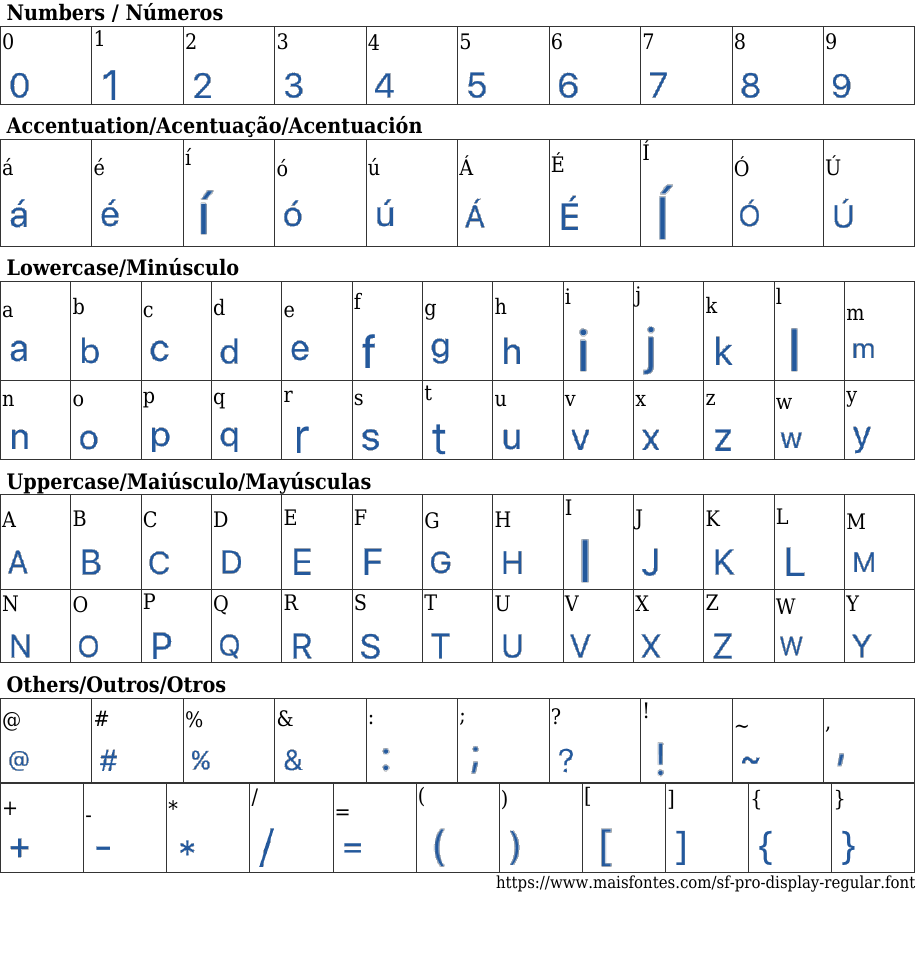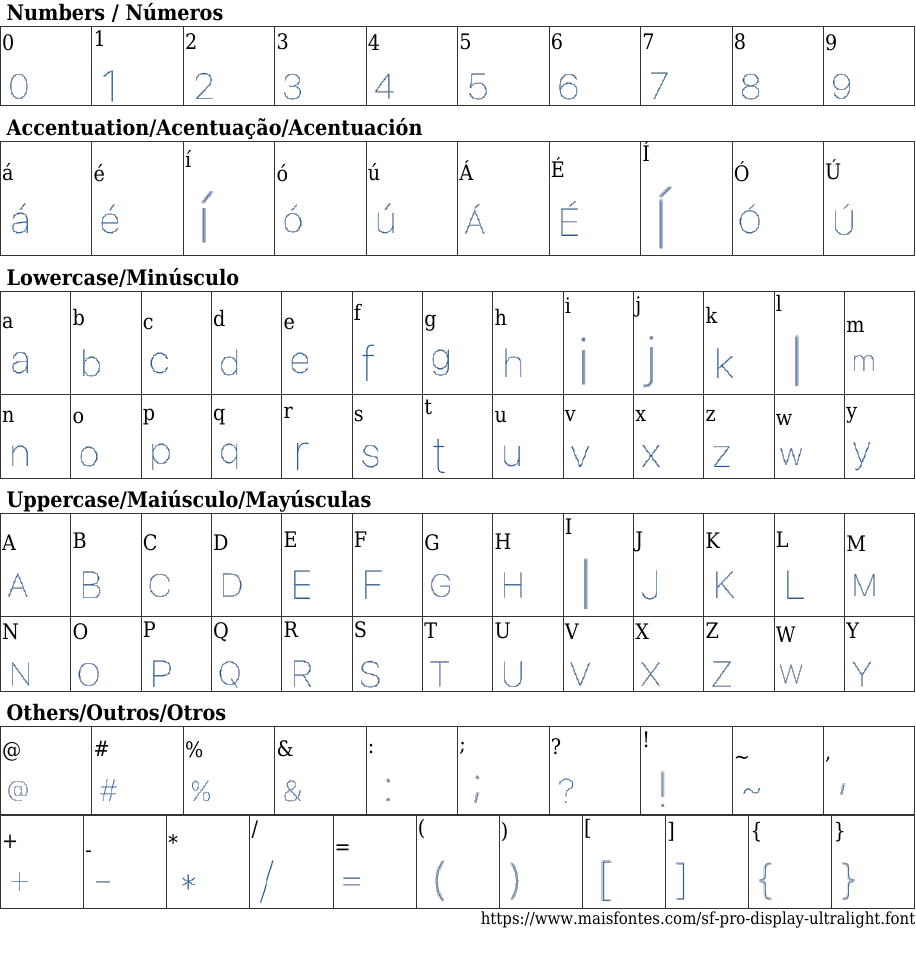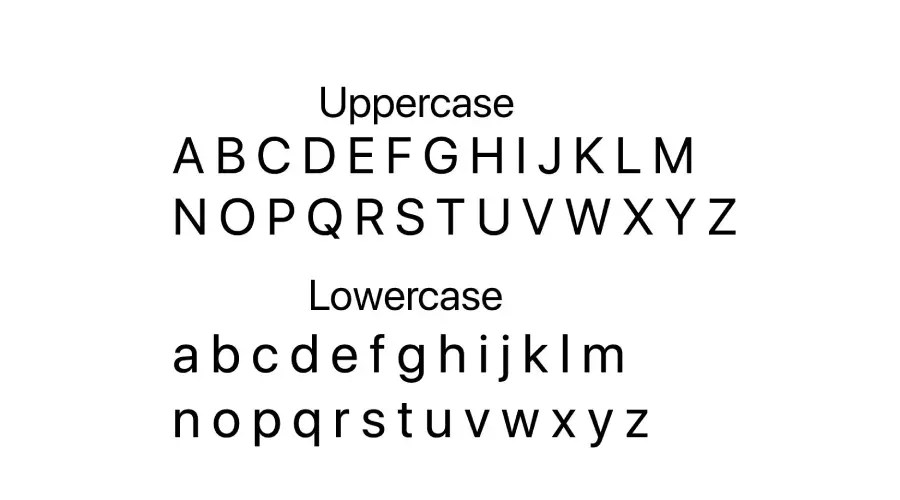
Sf Pro Display Download Font . Has a total of 9 different styles. Sf pro display font family. 51 rows the entire collection of san francisco pro fonts. Sf pro display font family designed by apple inc. The purpose of this is to provide a singular set of. Use sf pro text for text 19 points or smaller, and sf. This simple collection contains all the dynamic type sizes for sf pro display in 4 weights: You can download the sf pro display font to your computer or use it. Including the new serif fonts found in the apple book app on ios 12, and more to come. Use sf pro text for text 19 points or smaller, and sf pro display for text 20 points or larger. Sf pro features nine weights, variable optical sizes for optimal legibility, four widths, and includes a. Regular, medium, semibold, and bold. 20 rows san francisco family (sf family) all of the fonts in san francisco font family, developed by apple. San francisco (sf) is the carplay system typeface.
Use sf pro text for text 19 points or smaller, and sf. Use sf pro text for text 19 points or smaller, and sf pro display for text 20 points or larger. Including the new serif fonts found in the apple book app on ios 12, and more to come. 51 rows the entire collection of san francisco pro fonts. Sf pro display font family designed by apple inc. You can download the sf pro display font to your computer or use it. Regular, medium, semibold, and bold. Sf pro display font family. San francisco (sf) is the carplay system typeface. Sf pro features nine weights, variable optical sizes for optimal legibility, four widths, and includes a.
Sf Pro Display Download Font Has a total of 9 different styles. The purpose of this is to provide a singular set of. Regular, medium, semibold, and bold. 51 rows the entire collection of san francisco pro fonts. You can download the sf pro display font to your computer or use it. Use sf pro text for text 19 points or smaller, and sf pro display for text 20 points or larger. Sf pro features nine weights, variable optical sizes for optimal legibility, four widths, and includes a. Including the new serif fonts found in the apple book app on ios 12, and more to come. Has a total of 9 different styles. Use sf pro text for text 19 points or smaller, and sf. Sf pro display font family designed by apple inc. 20 rows san francisco family (sf family) all of the fonts in san francisco font family, developed by apple. This simple collection contains all the dynamic type sizes for sf pro display in 4 weights: San francisco (sf) is the carplay system typeface. Sf pro display font family.
How to Use SF Pro Expanded and the Other New Font Widths DetailsPro Sf Pro Display Download Font You can download the sf pro display font to your computer or use it. Has a total of 9 different styles. Regular, medium, semibold, and bold. Sf pro display font family. The purpose of this is to provide a singular set of. Use sf pro text for text 19 points or smaller, and sf. Including the new serif fonts found. Sf Pro Display Download Font.
SF Pro Display UltraLight Free Font Download MaisFontes Sf Pro Display Download Font Sf pro display font family. 20 rows san francisco family (sf family) all of the fonts in san francisco font family, developed by apple. You can download the sf pro display font to your computer or use it. This simple collection contains all the dynamic type sizes for sf pro display in 4 weights: Has a total of 9 different. Sf Pro Display Download Font.
Sf Pro Text Regular Font Download Printable Online Sf Pro Display Download Font 51 rows the entire collection of san francisco pro fonts. Use sf pro text for text 19 points or smaller, and sf. The purpose of this is to provide a singular set of. Regular, medium, semibold, and bold. Sf pro display font family. 20 rows san francisco family (sf family) all of the fonts in san francisco font family, developed. Sf Pro Display Download Font.
SF Pro Display Font Family Download Free for Desktop & font Sf Pro Display Download Font Use sf pro text for text 19 points or smaller, and sf. You can download the sf pro display font to your computer or use it. 20 rows san francisco family (sf family) all of the fonts in san francisco font family, developed by apple. The purpose of this is to provide a singular set of. Sf pro display font. Sf Pro Display Download Font.